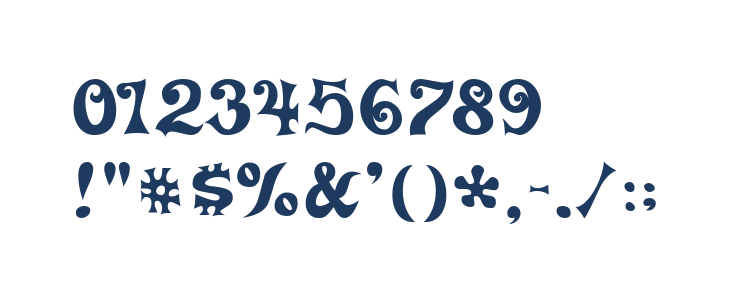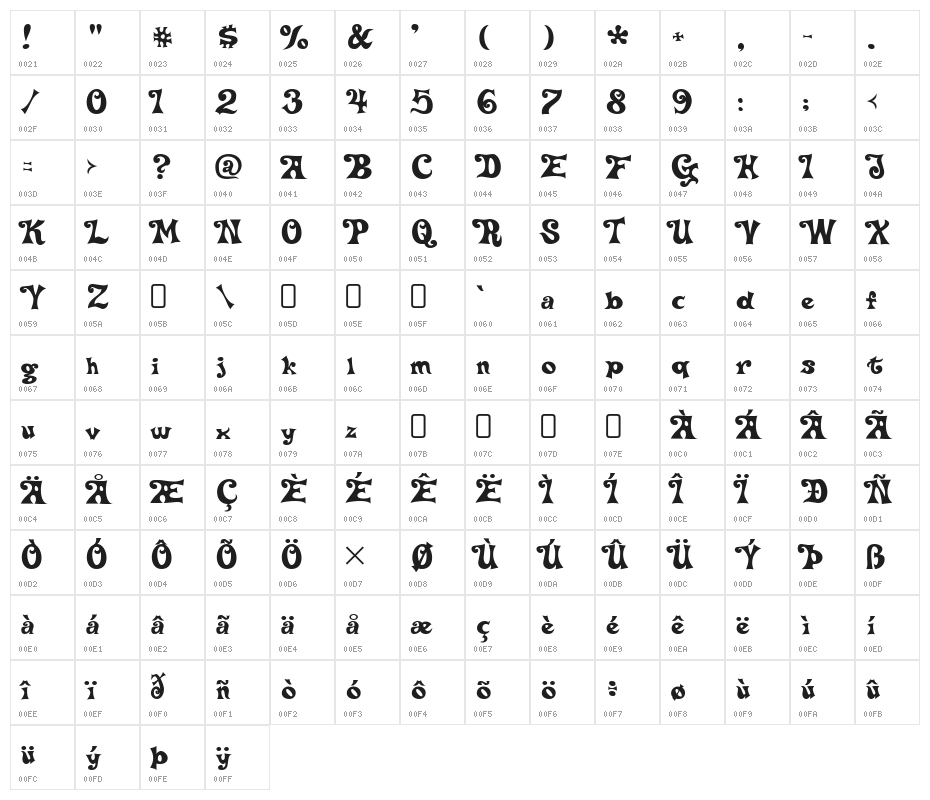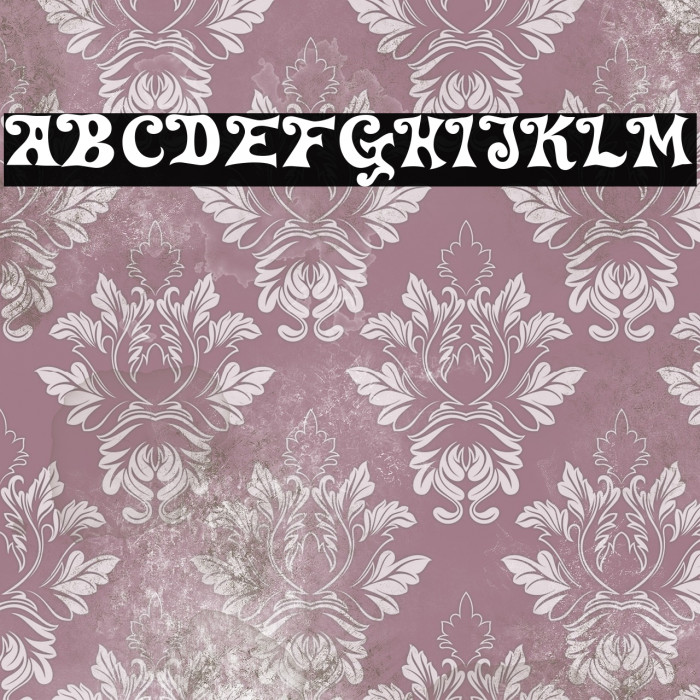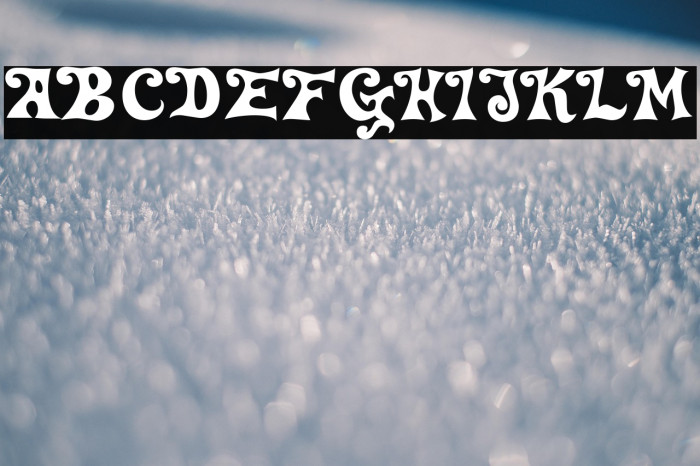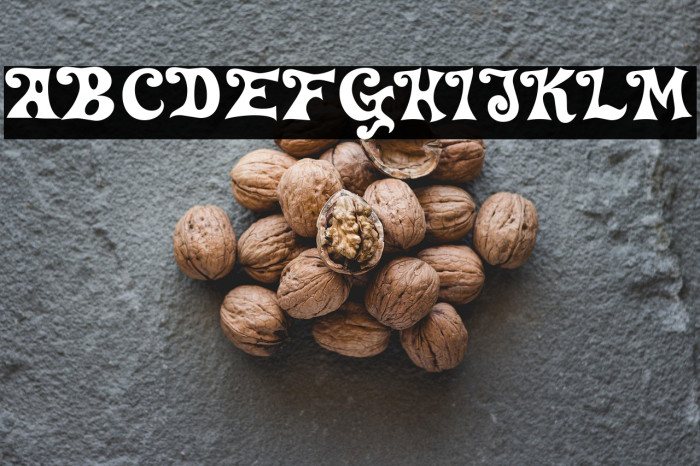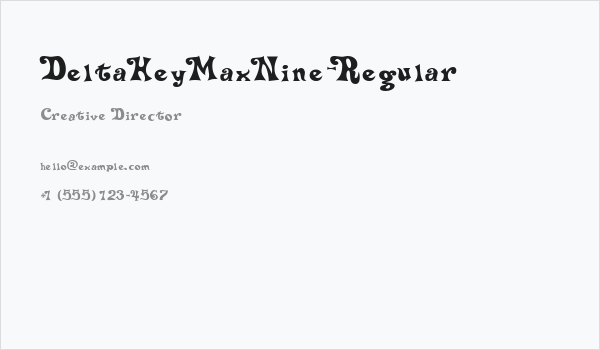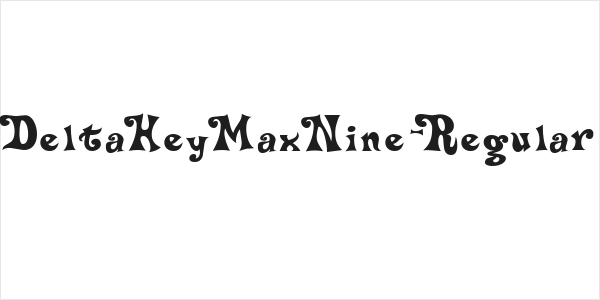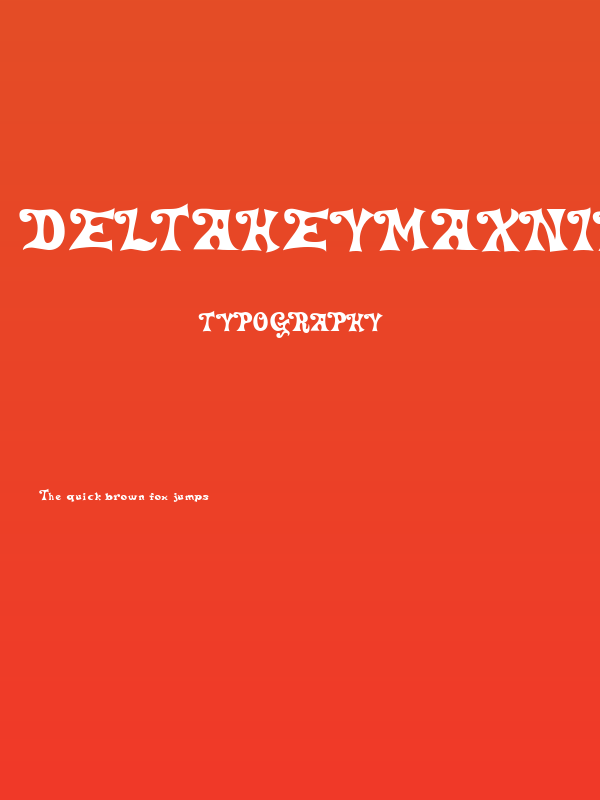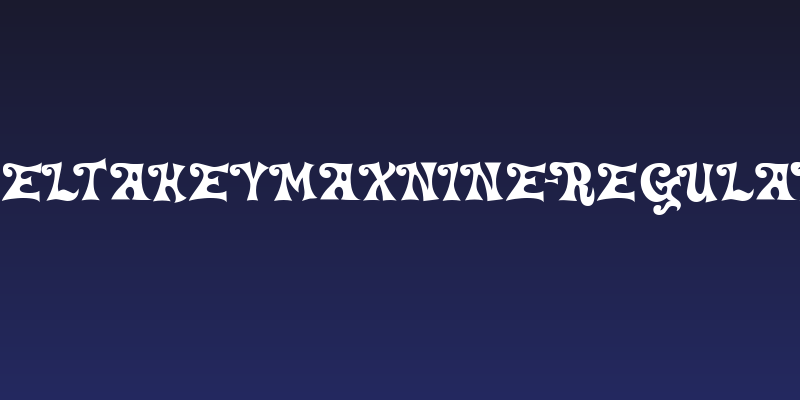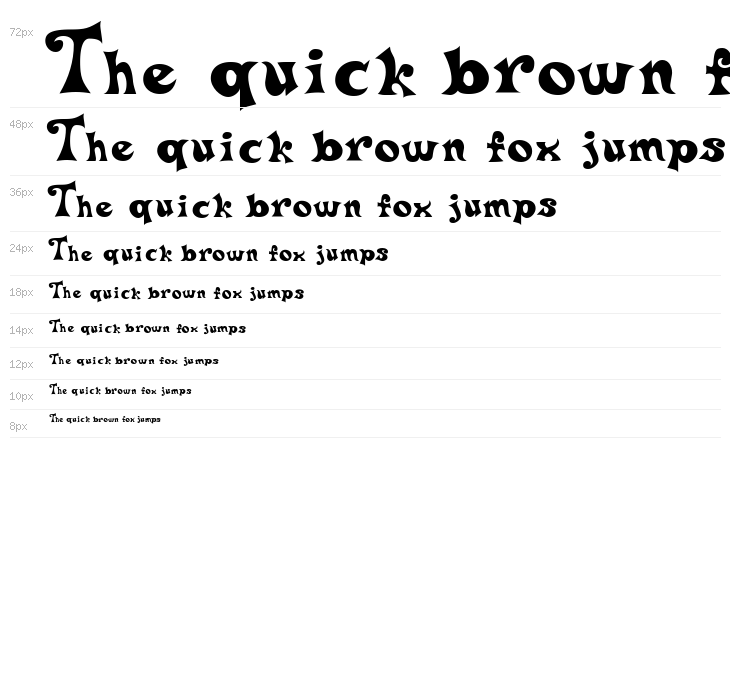
DeltaHeyMaxNine-Regular Font
DeltaHeyMaxNine-Regular Description
This font features a bold and playful design with exaggerated serifs and whimsical curves. The characters have a unique, almost theatrical flair, making them stand out with their bold presence. The uppercase letters are particularly striking, with sharp angles and dramatic strokes, while the lowercase letters maintain a consistent style with slightly softer edges. The numbers and special characters follow the same bold and decorative theme, ensuring a cohesive look across all elements. This font is ideal for projects that require a touch of creativity and fun, offering a distinctive style that captures attention.